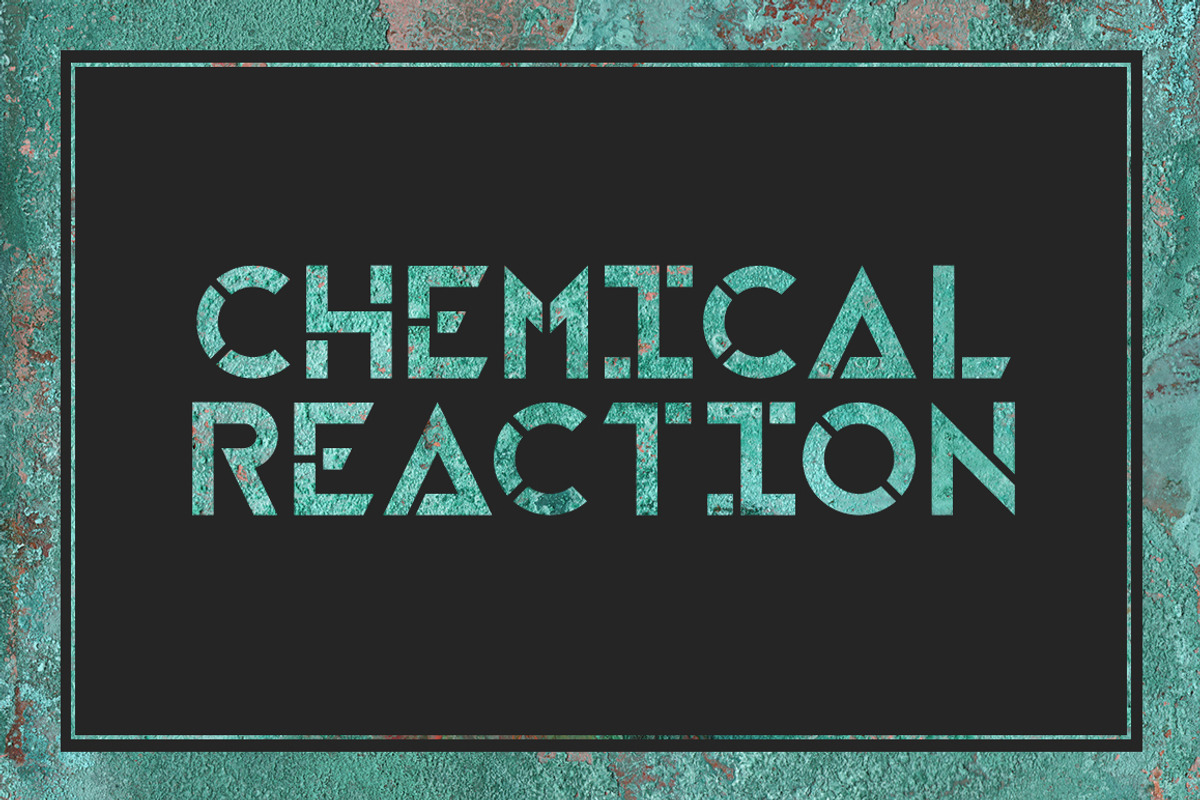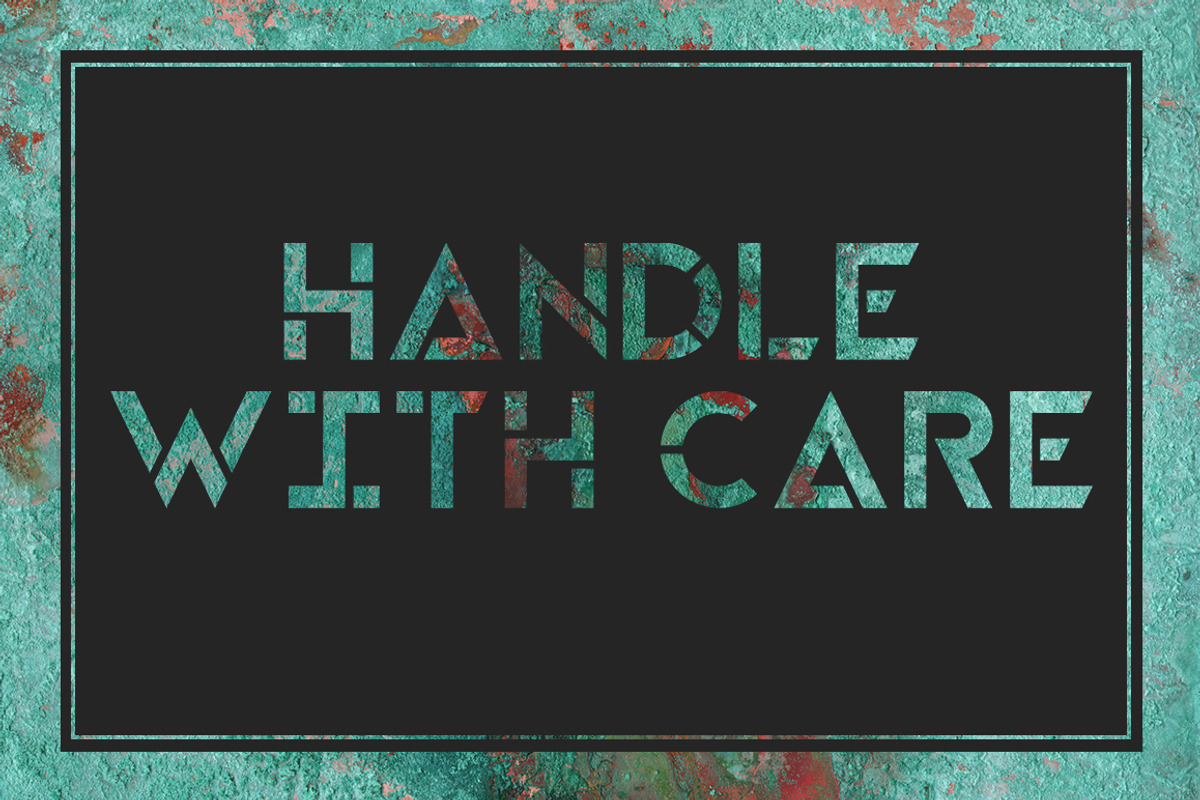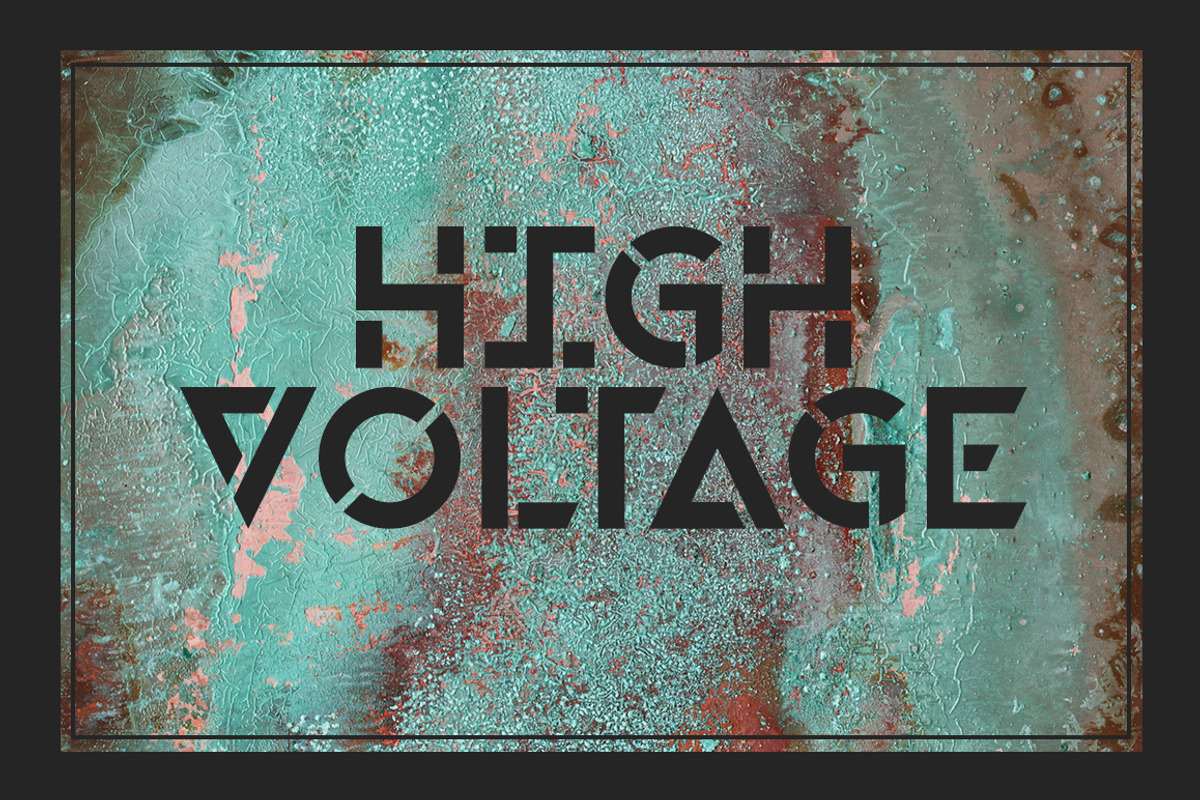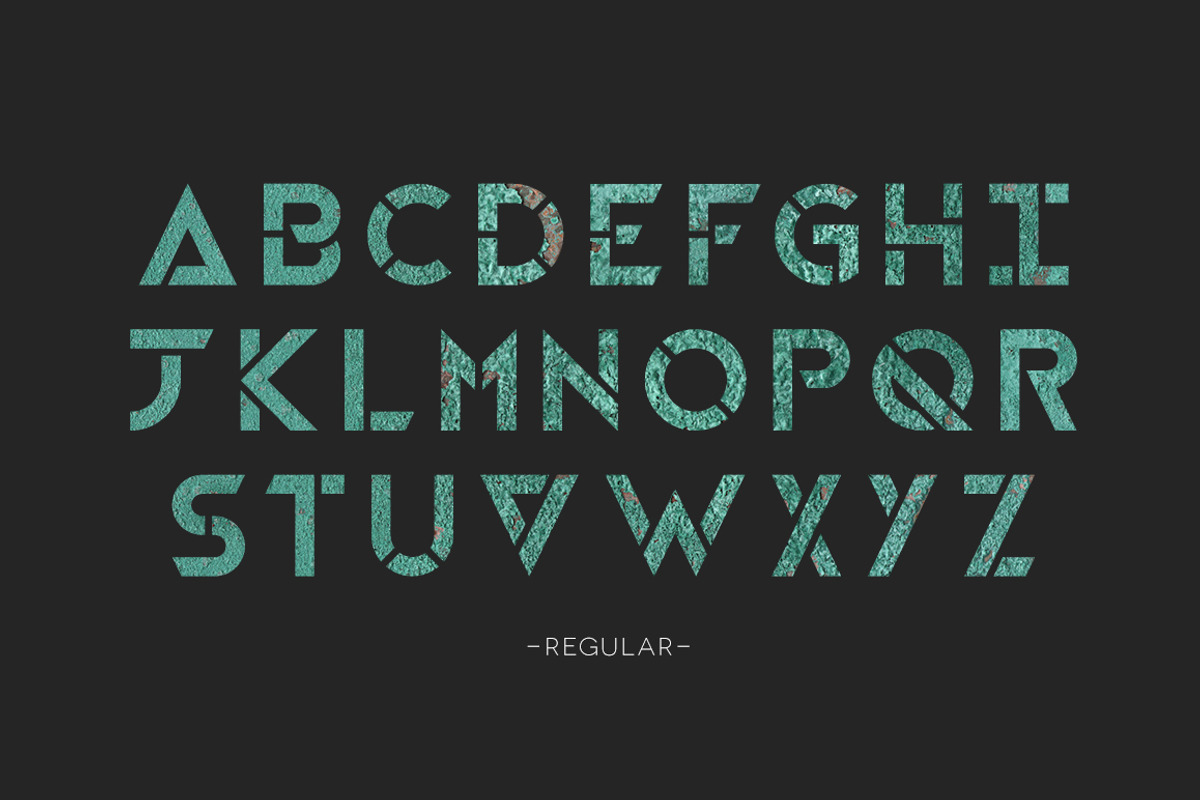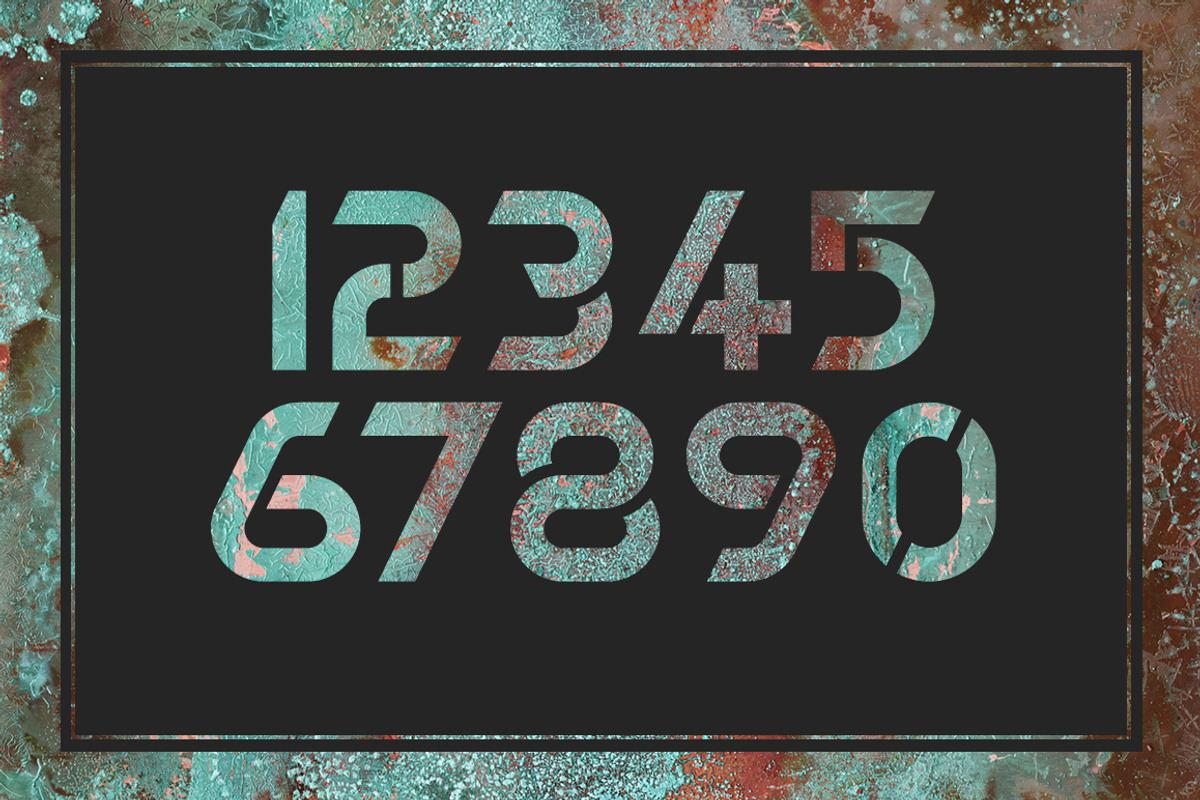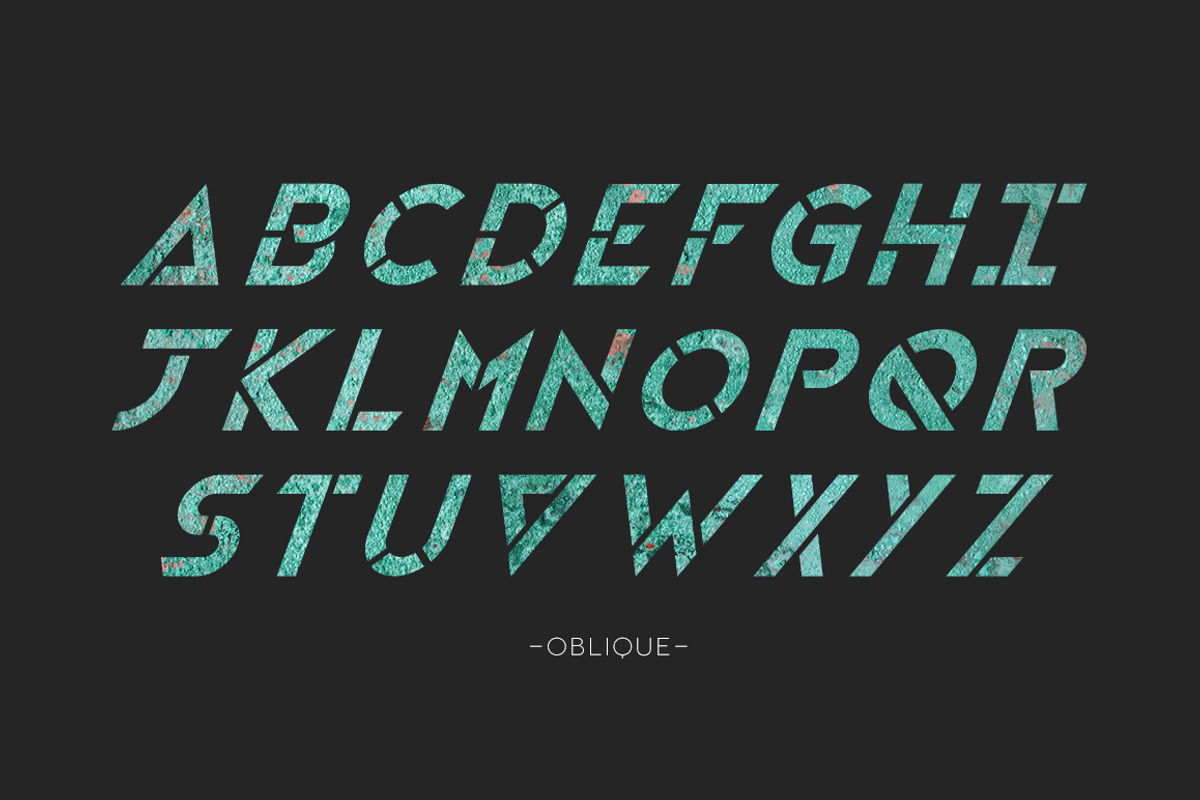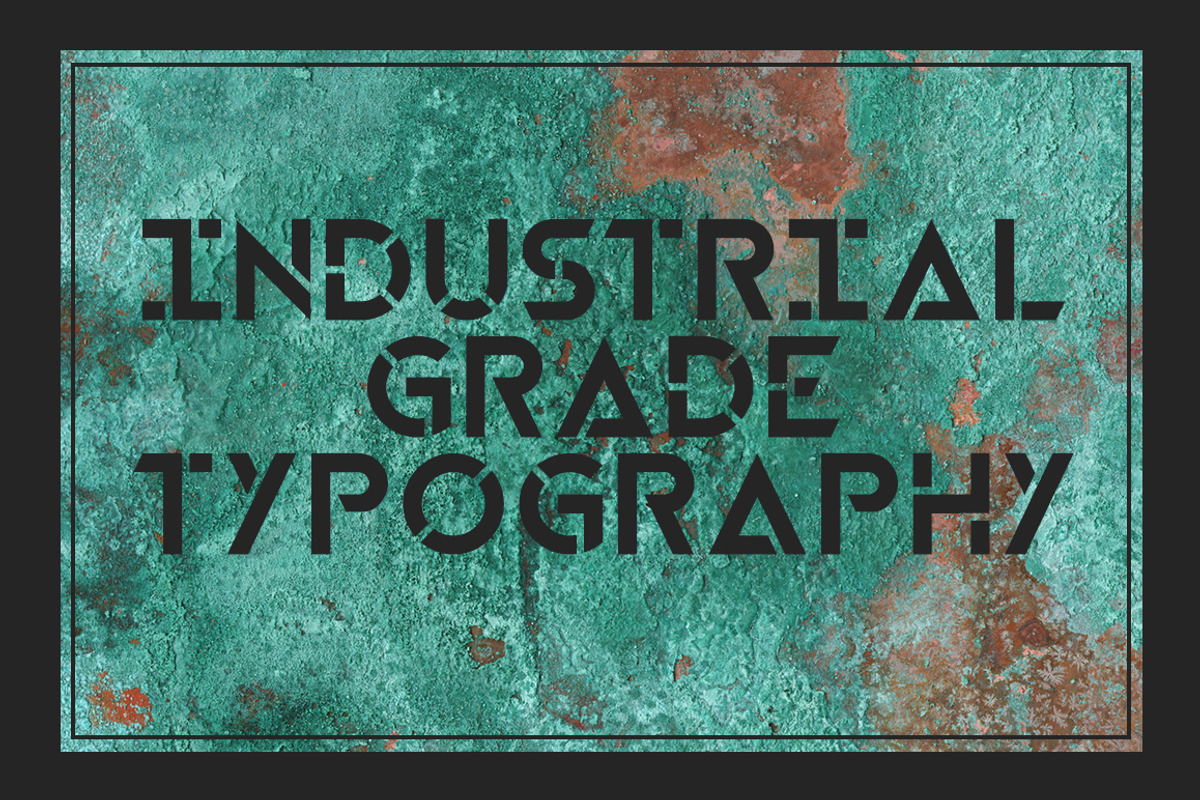
HAZMAT
HAZMAT by Little Fonts is a font selected for branding, posters, packaging, typography.
- HAZMAT is a distinctive stencil, using angular characters to give the font an energetic look and feel.
Why HAZMAT is worth a look
HAZMAT by Little Fonts fits naturally into Branding, posters, packaging, typography.